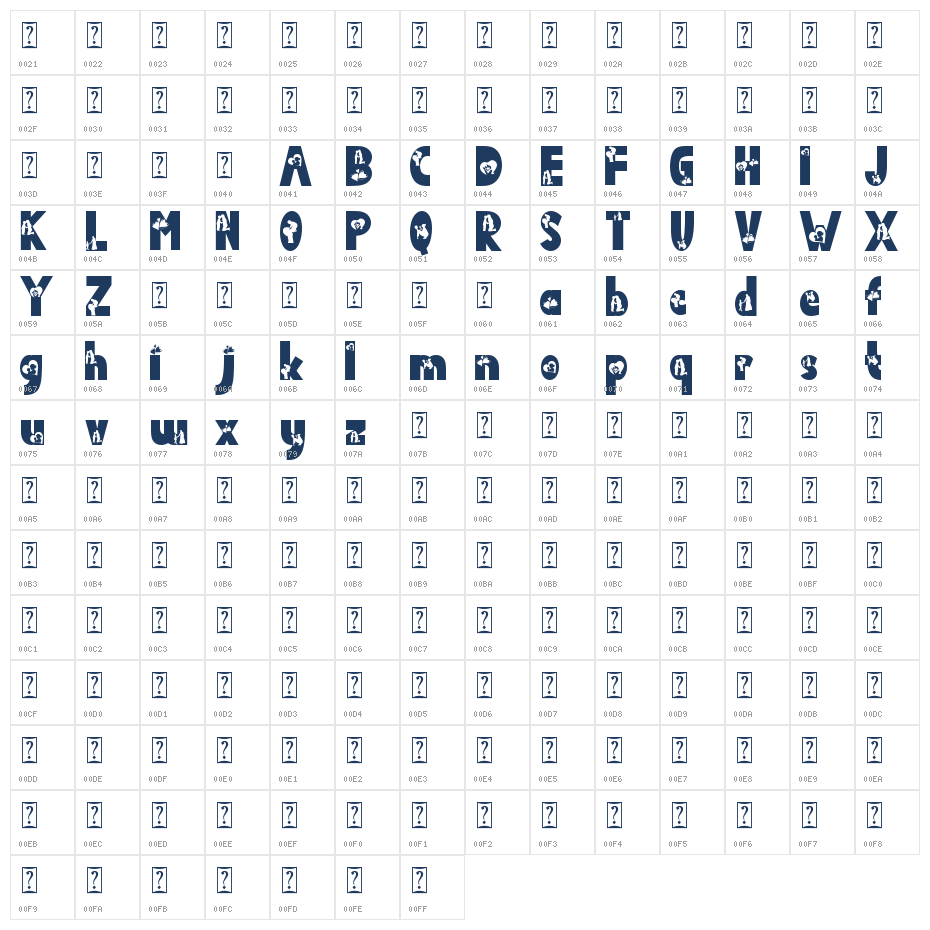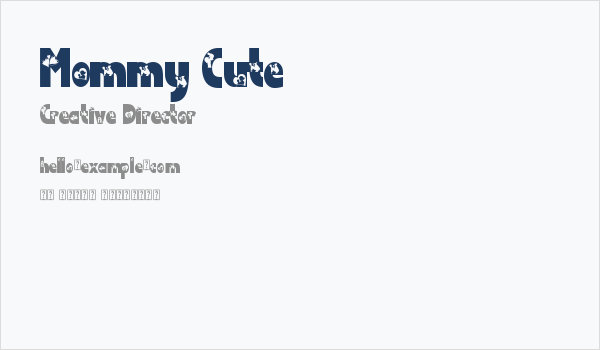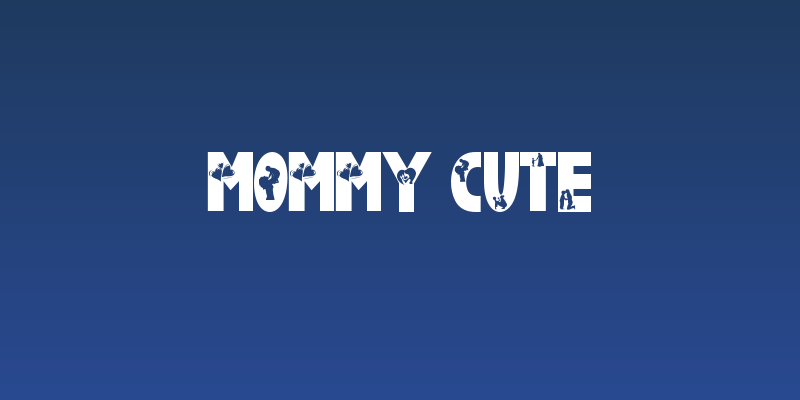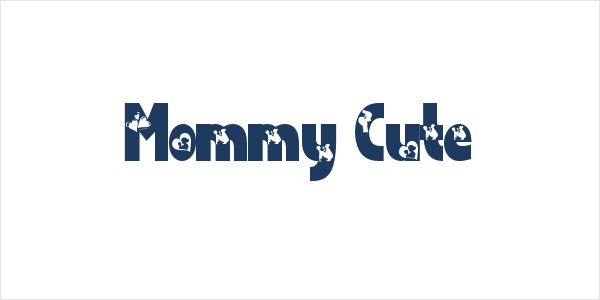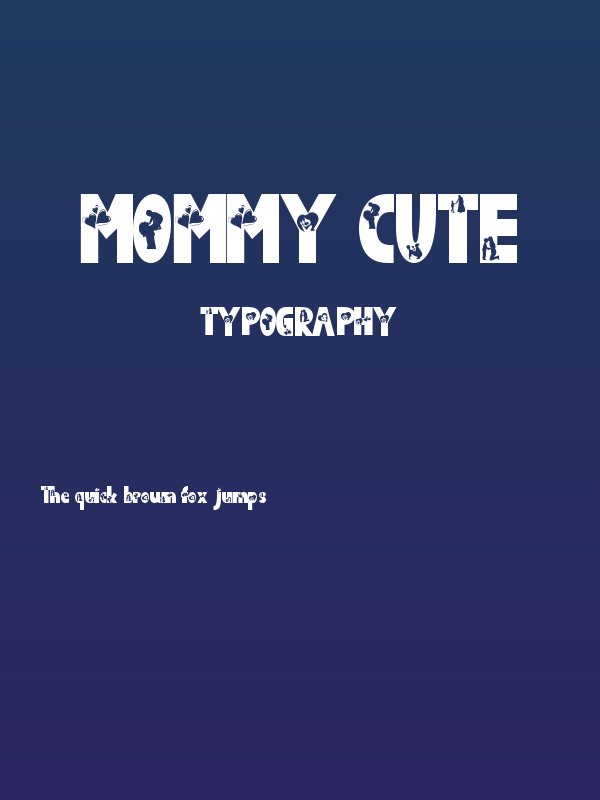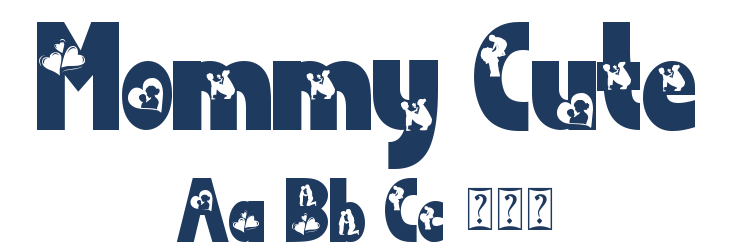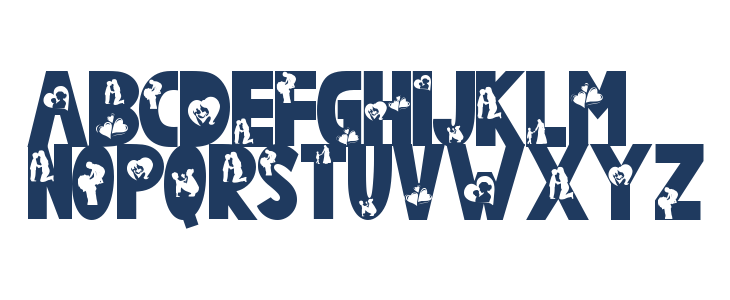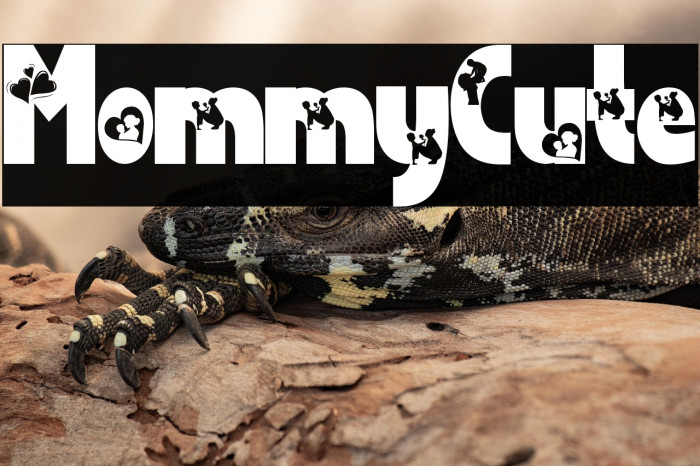
Mommy Cute Font
Mommy Cute Description
Bold, blocky sans-serif font with playful, decorative elements inside each character, featuring small heart and flower motifs.
| Overall Style | Playful, Modern, Decorative |